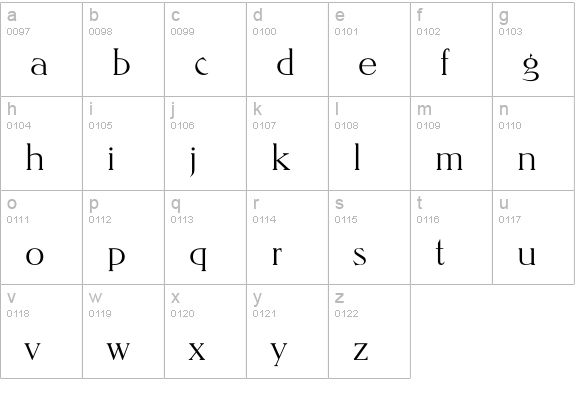
NevadaEF-ExtraLight is an airy, ultra-refined variant in the NevadaEF typeface family \xE2\x80\x94 well suited to minimalist headlines and refined display use.
NevadaEF-ExtraLight is a sleek and modern typeface that exudes elegance and sophistication. Its delicate and refined design makes it perfect for creating stylish and contemporary designs. With its extra light weight, this font is ideal for adding a touch of subtlety and grace to your projects. The best part about NevadaEF-ExtraLight is that it is completely free to download at FontsMarket.com. This means you can easily access this stunning font for your personal or commercial use without any cost. Whether you're working on a branding project, a website design, or any other creative endeavor, NevadaEF-ExtraLight is sure to elevate your work with its effortless charm and versatility. Download NevadaEF-ExtraLight today from FontsMarket.com and enhance your designs with this sophisticated and elegant font.